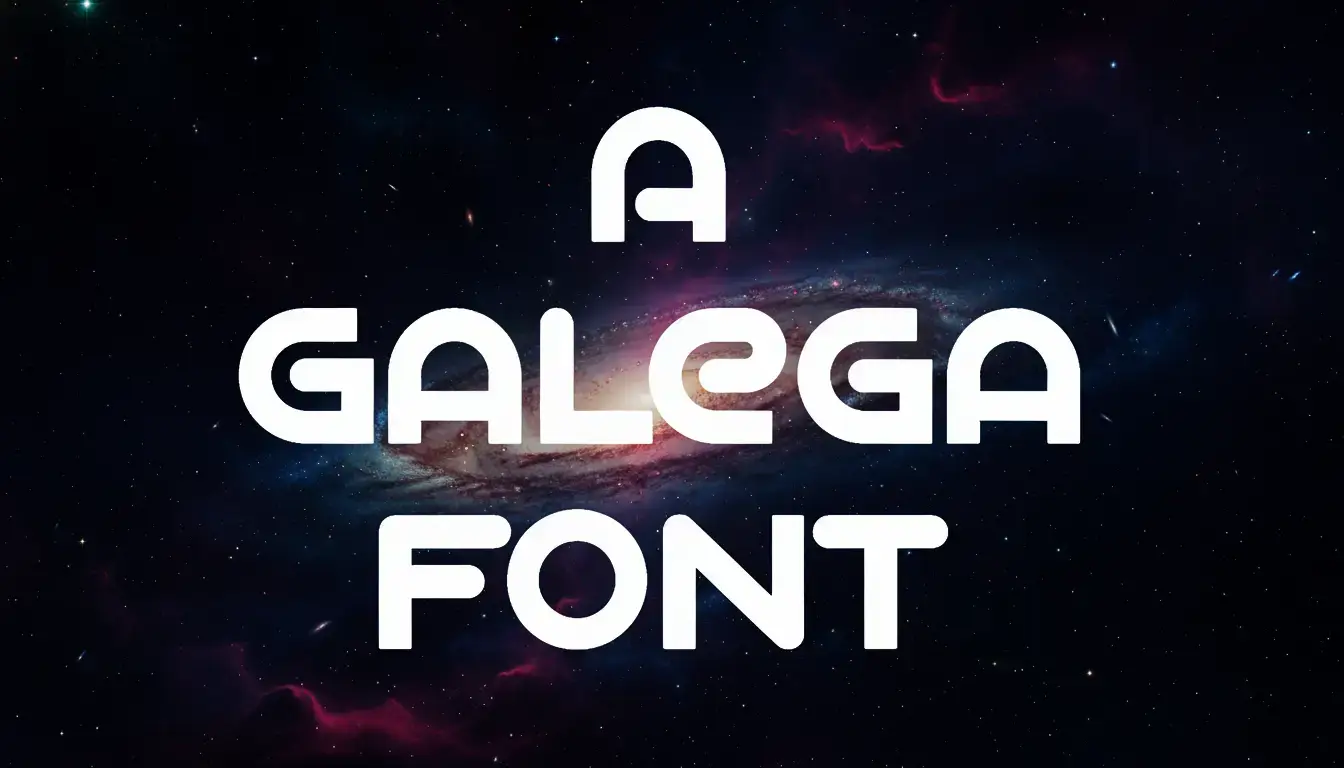
A Galega Font
A Galega
A Galega is a techno font designed by ALBERTO VARELA FERREIRO and published by PYRS Fontlab Ltd. / Made with FontLab. Its angular, engineered shapes look right at home on screens and tech products. You can download it for free and test it with your own words in the preview above.
- Designer: ALBERTO VARELA FERREIRO
What You Can Type With A Galega
With complete upper and lowercase letters and all ten digits, A Galega is ready for real wording, not just a single headline. Common punctuation such as &, !, ? and @ is included as well. It also has the accented letters you need for Spanish, German and Italian.
Where A Galega Works Best
Think of A Galega for gaming logos, tech branding and futuristic posters. Try it on a dark background with a bright accent color for a sharp, modern look.
A Galega Font FAQs
Does A Galega support accented letters?
Yes. A Galega includes the accented letters needed for Spanish, German and Italian, so it works for more than just English.
What fonts pair well with A Galega?
A simple sans serif like Roboto keeps longer text easy to read next to it.